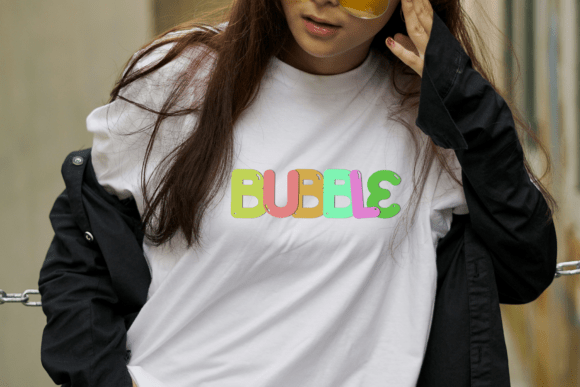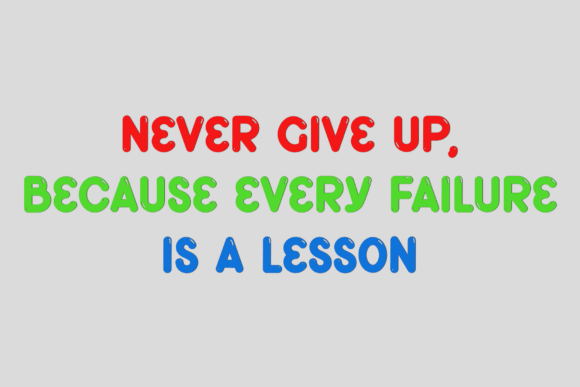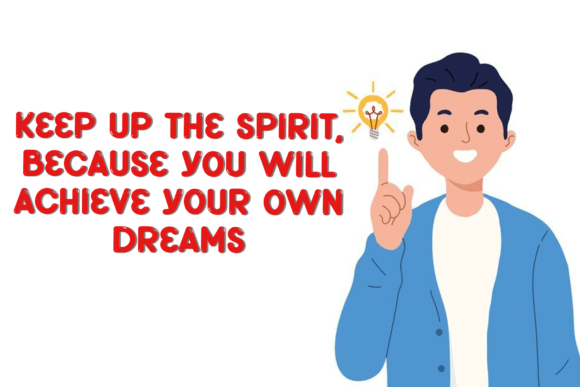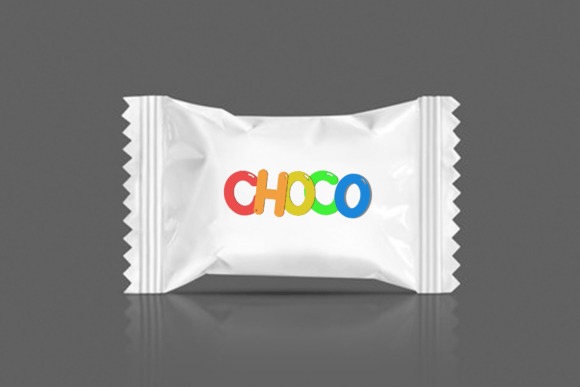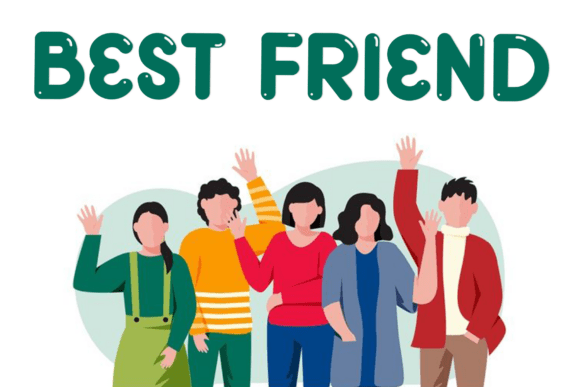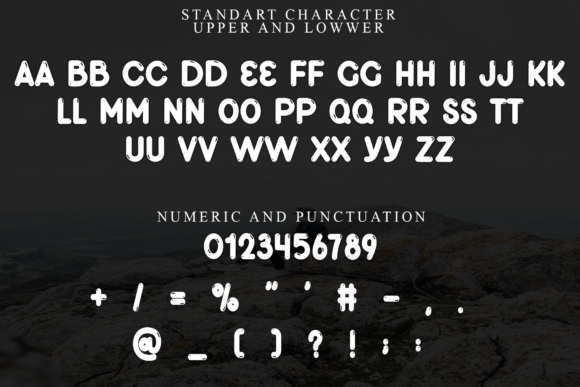
Introducing City Center Font: The Ultimate Holiday Typeface
The holiday season is upon us, and what better way to get into the spirit than with a festive and merry typeface? Look no further than City Center Font, a decorative font that captures the essence of the holiday season with its whimsical flair and enchanting charm. In this article, we’ll dive into the world of City Center Font, exploring its features, uses, and benefits for designers and crafters alike.
City Center Font is a holiday-themed typeface designed to add a touch of magic to your designs. Its decorative elements and whimsical flair evoke the nostalgia and cheer of the holiday season, making it perfect for a wide range of projects, from greeting cards and gift tags to holiday-themed posters and social media graphics. With City Center Font, you can create designs that are sure to put a smile on people’s faces and get them in the mood for the holidays.
Whether you’re a designer, crafter, or DIY enthusiast, City Center Font is the perfect addition to your holiday projects. Use it to create:
- Greeting cards that stand out from the crowd
- Gift tags that add a personal touch
- Holiday-themed posters and flyers that grab attention
- Social media graphics that spread holiday cheer
One of the best things about City Center Font is that it’s PUA (Private Use Area) encoded, which means you can access all of the amazing glyphs and ligatures with ease. No need to worry about complicated font installation or mapping – simply install the font and start using it right away. With PUA encoding, you can:
- Access a wide range of decorative glyphs and ligatures
- Easily switch between different characters and symbols
- Create unique and eye-catching designs
So, what makes City Center Font so special? Here are just a few of its key features and benefits:
- Festive and merry design: City Center Font is designed to capture the spirit of the holiday season, with a whimsical flair and decorative elements that add a touch of enchantment to your designs.
- PUA encoded: With PUA encoding, you can access all of the amazing glyphs and ligatures with ease, making it simple to create unique and eye-catching designs.
- Perfect for holiday projects: City Center Font is ideal for a wide range of holiday projects, from greeting cards and gift tags to holiday-themed posters and social media graphics.
Need some inspiration for your holiday projects? Here are a few tips to get you started:
- Experiment with different glyphs and ligatures: With City Center Font’s PUA encoding, you can access a wide range of decorative glyphs and ligatures. Experiment with different characters and symbols to create unique and eye-catching designs.
- Combine with other fonts: City Center Font pairs perfectly with other festive and merry fonts. Try combining it with a bold sans-serif font for a striking contrast.
- Add some holiday cheer: Don’t be afraid to get creative and add some holiday cheer to your designs. Use City Center Font to create designs that are sure to put a smile on people’s faces.
In conclusion, City Center Font is the ultimate holiday typeface for designers and crafters alike. With its festive and merry design, PUA encoding, and ease of use, it’s perfect for a wide range of holiday projects. Whether you’re creating greeting cards, gift tags, or holiday-themed posters, City Center Font is sure to add a touch of enchantment and magic to your designs. So why wait? Download City Center Font today and let your typography shine with the magic of Beautiful Font!